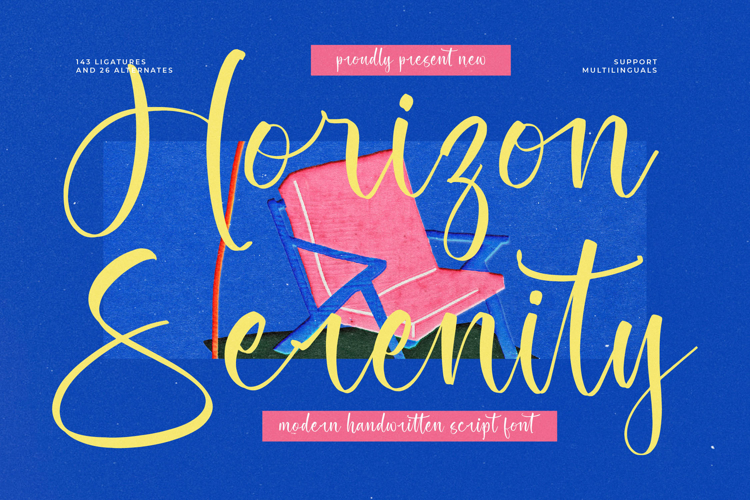
Horizon Serenity - Modern Handwritten Script Font
Unlock the power of authentic, flowing script with Horizon Serenity - Modern Handwritten Script Font. This typeface is a masterpiece of handwritten grace, blending spontaneous, organic strokes with impeccable modern clarity. Its generous loops and significant ascenders create a dynamic visual hierarchy that instantly draws the eye. Perfect for projects demanding both personality and polished professionalism, this font elevates simple text into a powerful design statement, conveying warmth and exclusive appeal.